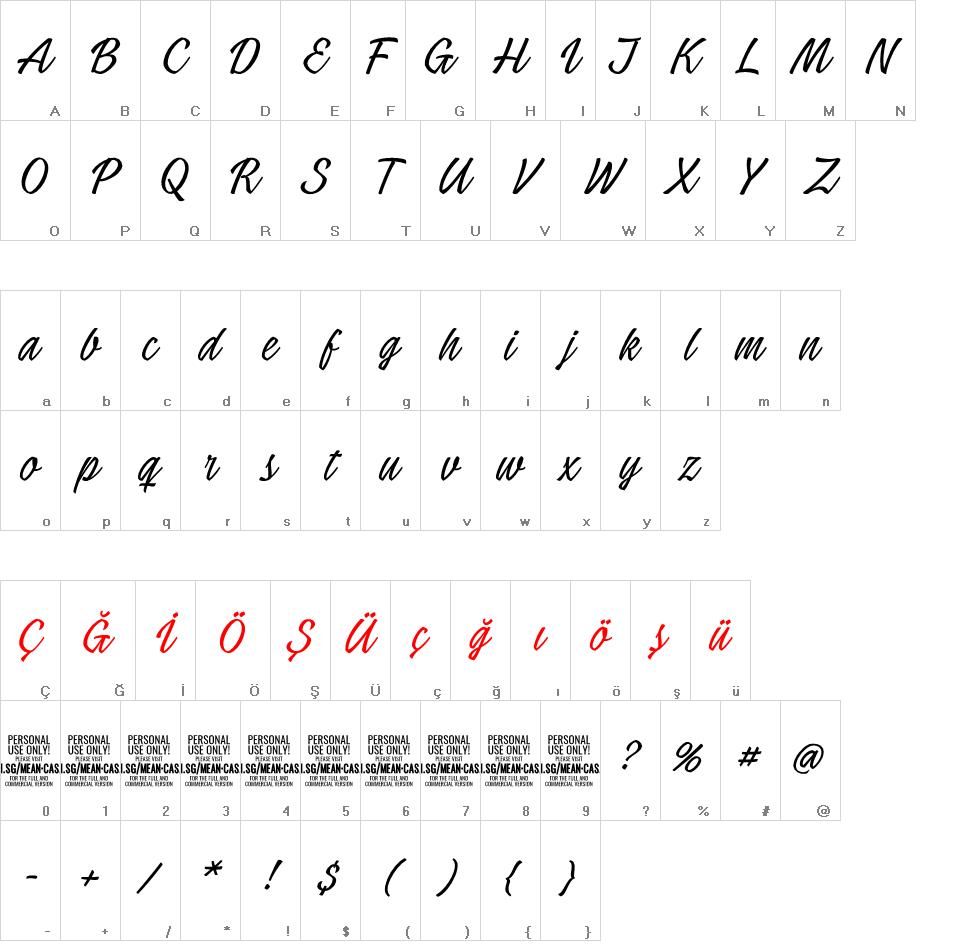
Mean Casat font
Mean Casat is a stylish script family.
The typeface is an original creation by Måns Grebäck, built during 2017.
Its five weight has been carefully designed and gives great variation to the font family:
Mean Casat Thin, Mean Casat Light, Mean Casat Med, Mean Casat Bold and Mean Casat Fat.
The font also contains multiple extra OpenType features; including a set of stylistic alternate characters, a swash alternate alphabet, small caps, initial and final versions of all letters, ornaments and ligatures.
With its hundreds of glyphs, Mean Casat supports a very wide range of languages.